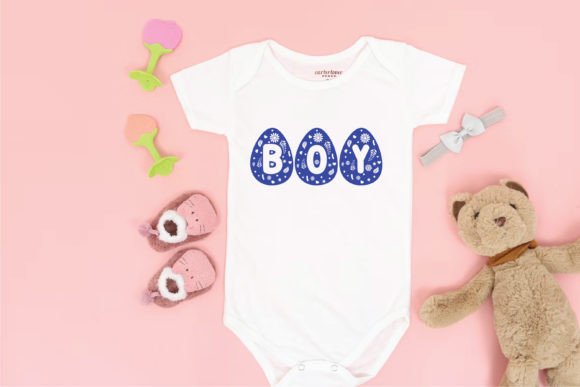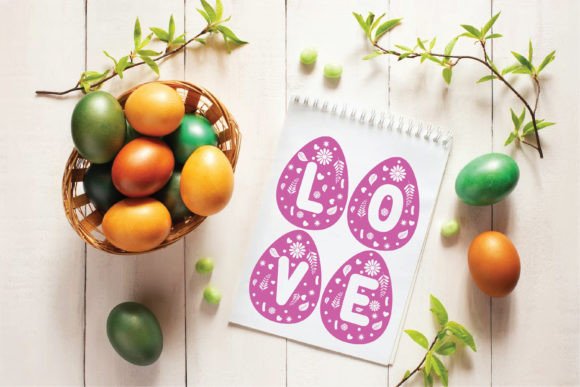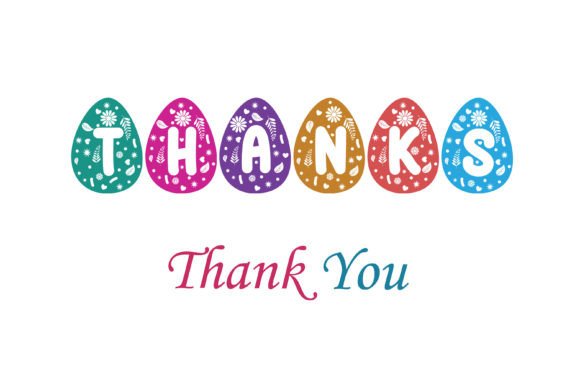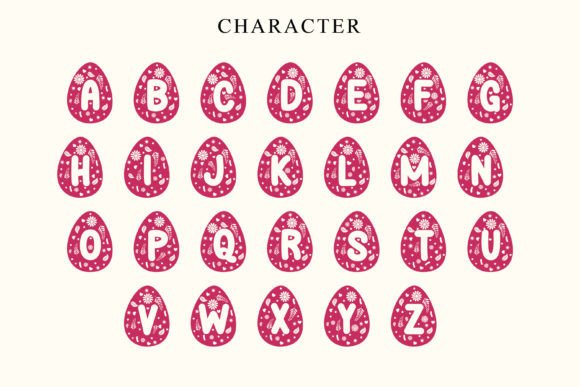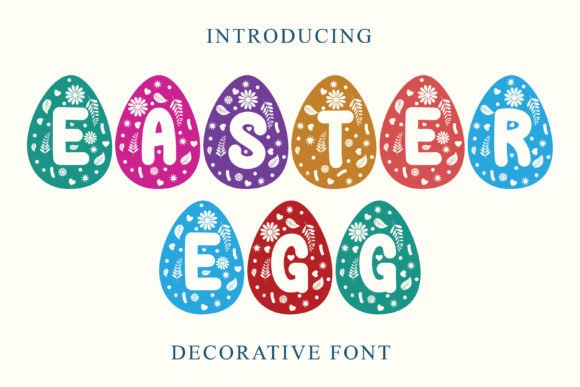
Easter Egg Decorative Font: Add a Touch of Whimsy to Your Designs
Are you looking for a unique and playful font to add some excitement to your designs? Look no further than the Easter Egg Decorative Font! This cool and uniquely crafted decorative font is perfect for creating eye-catching stickers, mugs, t-shirts, ornaments, Easter’s Day cards, event invitations, and many more.
What Makes Easter Egg Decorative Font So Special?
The Easter Egg Decorative Font is a one-of-a-kind font that is sure to make your designs stand out. Its fun and playful characters are carefully crafted to bring a touch of whimsy to any project. Whether you’re a designer, crafter, or DIY enthusiast, this font is sure to inspire your creativity.
The Easter Egg Decorative Font is incredibly versatile and can be used for a wide range of design projects. Here are some ideas to get you started:
- Stickers: Create fun and colorful stickers for kids or adults using this font. You can use it to make stickers for Easter baskets, party favors, or even laptop stickers.
- Mugs: Add a personal touch to your mugs with this decorative font. It’s perfect for creating custom mugs for Easter or any other occasion.
- T-shirts: Design eye-catching t-shirts for Easter or spring-themed events using this font. You can also use it to create custom apparel for kids or adults.
- Ornaments: Create beautiful and unique ornaments for Easter or Christmas using this font. You can use it to make personalized ornaments for gifts or home decor.
- Easter’s Day Cards: Design stunning Easter’s Day cards for friends and family using this font. You can add a personal touch to your cards with custom illustrations and graphics.
- Event Invitations: Use this font to create custom event invitations for Easter parties, baby showers, or other celebrations.
Why Choose Easter Egg Decorative Font?
Here are some reasons why you should choose the Easter Egg Decorative Font for your design projects:
- Unique and Playful: This font is uniquely crafted to bring a touch of whimsy to your designs.
- Versatile: You can use this font for various design projects, from stickers to event invitations.
- High-Quality: The font is carefully crafted to ensure high-quality output for print or digital use.
Tips for Using Easter Egg Decorative Font
Here are some tips for using the Easter Egg Decorative Font:
- Experiment with Colors: Try out different colors and color combinations to make your designs pop.
- Add Illustrations: Use custom illustrations and graphics to enhance your designs.
- Play with Swashes: Experiment with different swashes and glyphs to add a personal touch to your designs.